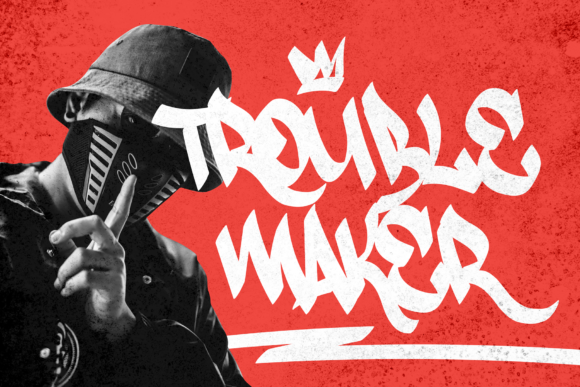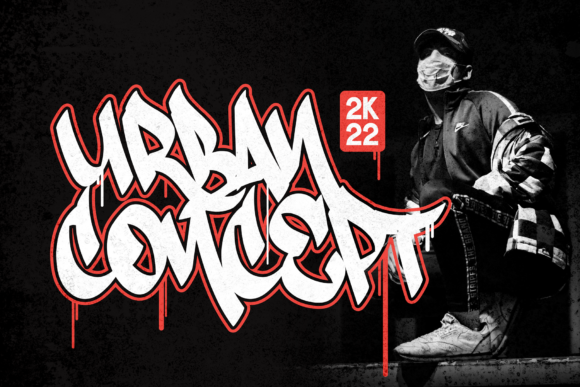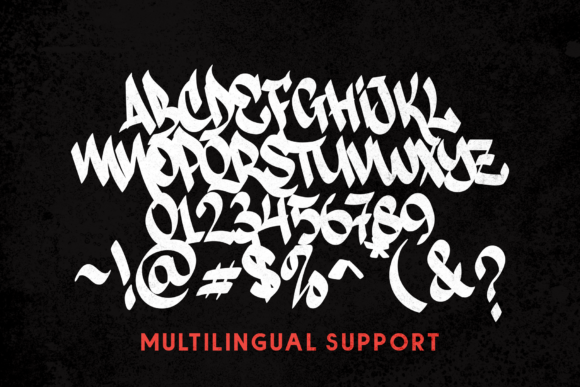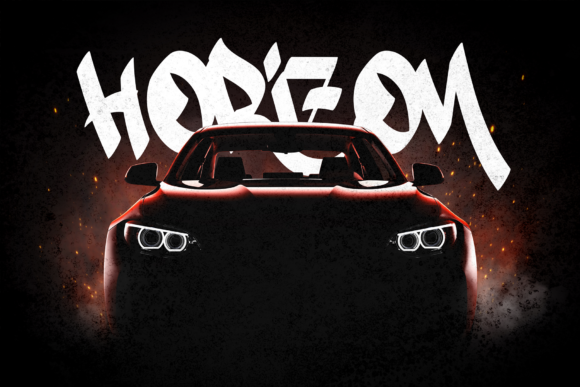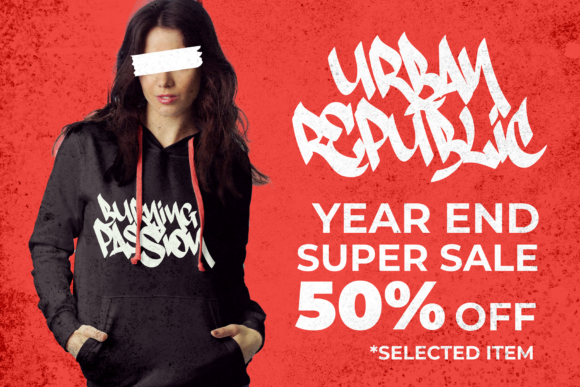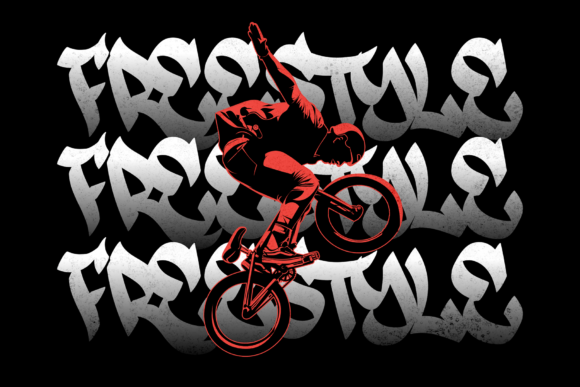
Unleash Your Creativity with Darksite Font: The Ultimate Urban Graffiti Display Font
Are you a designer, artist, or crafter looking for a unique and edgy font to elevate your creative projects? Look no further than Darksite Font, an urban graffiti display font designed to make graffiti designs easier. In this article, we’ll dive into the features, benefits, and uses of Darksite Font, and explore how it can take your designs to the next level.
What is Darksite Font?
Darksite Font is a carefully crafted urban graffiti display font, created with the intention of making graffiti designs more accessible and effortless. This font is perfect for designers, artists, and crafters who want to add a touch of edginess and urban flair to their projects. With Darksite Font, you can create stunning graffiti-inspired designs that are sure to grab attention.
Key Features of Darksite Font
- Unique and Edgy Design: Darksite Font boasts a distinctive and bold design, perfect for creating eye-catching graffiti-inspired artwork.
- Easy to Use: This font is designed to be user-friendly, making it easy to incorporate into your projects, even for those with limited design experience.
- Versatile: Darksite Font is suitable for a wide range of projects, including packaging, logos, labels, posters, shirt designs, bulletins, typography, and more.
- High-Quality: This font is crafted with precision and attention to detail, ensuring a high-quality output that will impress.
Uses of Darksite Font
Darksite Font is an incredibly versatile font that can be used in various projects, including:
- Packaging Design: Add a touch of urban flair to your product packaging with Darksite Font.
- Logo Design: Create a bold and eye-catching logo for your brand or business.
- Poster Design: Design striking posters that grab attention with Darksite Font.
- T-Shirt Design: Create unique and stylish t-shirt designs that will stand out.
- Typography: Use Darksite Font to create stunning typographic artwork.
Benefits of Using Darksite Font
By using Darksite Font, you can:
- Save Time: With Darksite Font, you can create graffiti-inspired designs quickly and efficiently.
- Enhance Your Designs: Add a unique and edgy touch to your designs, setting them apart from the rest.
- Increase Engagement: Graffiti-inspired designs can be highly engaging, capturing the attention of your audience.
- Stand Out: With Darksite Font, you can create designs that are truly one-of-a-kind.
Who Can Use Darksite Font?
Darksite Font is perfect for:
- Graphic Designers: Add a new dimension to your designs with Darksite Font.
- Artists: Use Darksite Font to create stunning graffiti-inspired artwork.
- Crafters: Incorporate Darksite Font into your craft projects, such as papercraft, scrapbooking, or mixed media.
- Small Business Owners: Use Darksite Font to create unique branding and marketing materials.
Darksite Font is an exceptional urban graffiti display font that can elevate your designs and take them to the next level. With its unique and edgy design, ease of use, and versatility, Darksite Font is perfect for designers, artists, crafters, and small business owners looking to add a touch of urban flair to their projects. So why wait? Get creative with Darksite Font today and unleash your full design potential!